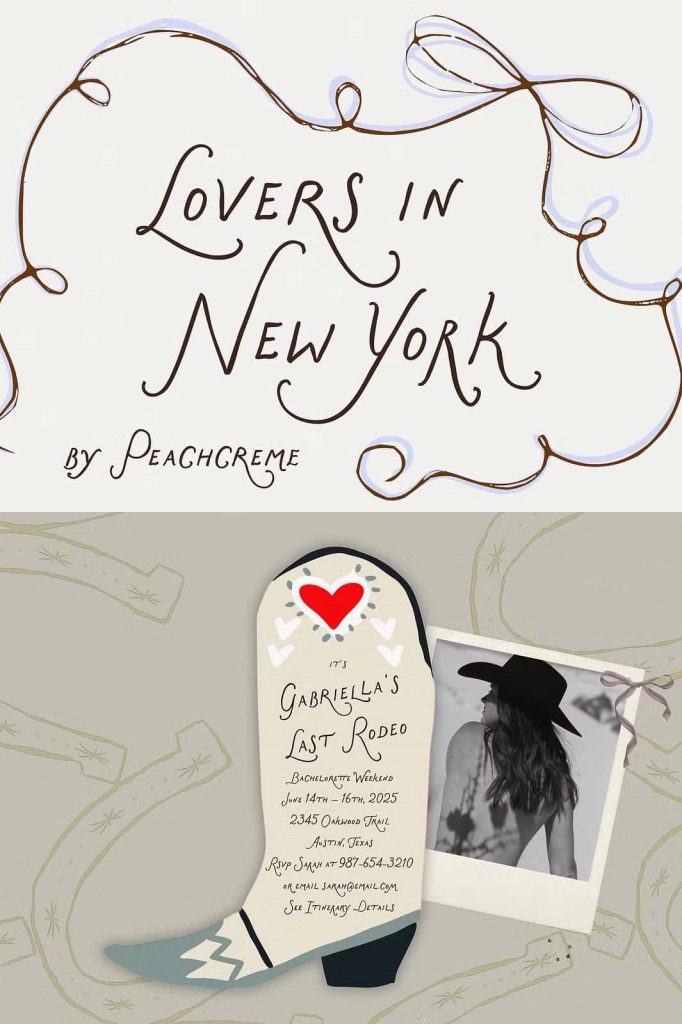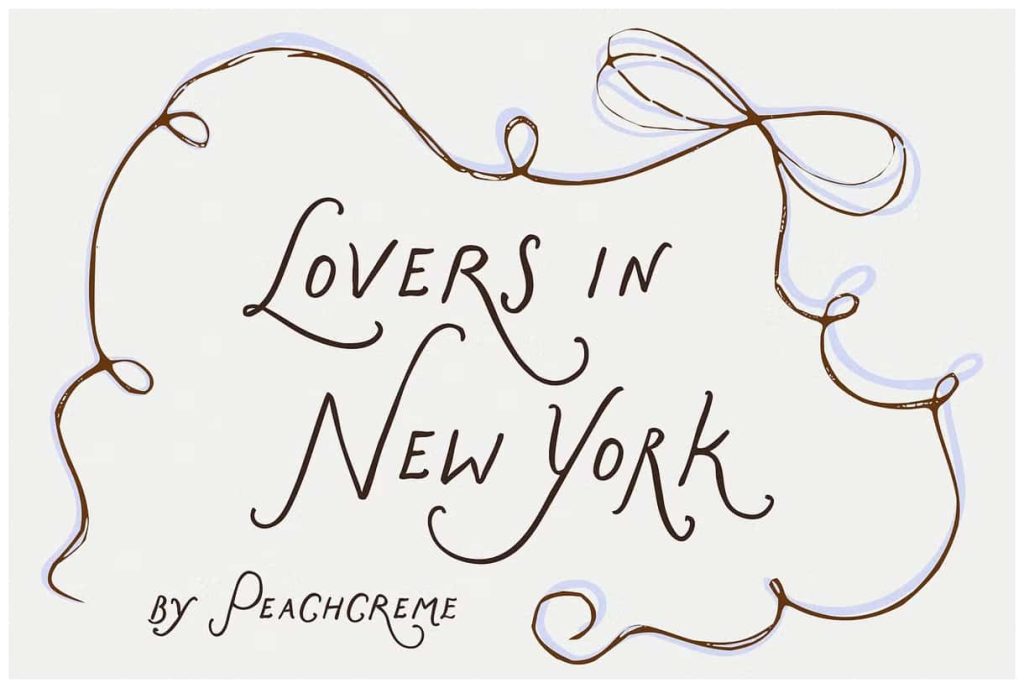
Lovers in New York Font – A Handcrafted Typeface Full of Life and Elegance
Lovers in New York Font is a beautifully hand-drawn typeface that blends energy, elegance, and authenticity. Each letter is crafted with a fluid, natural movement that mirrors the vibrancy of New York’s creative spirit. With its organic strokes and carefully designed imperfections, this typeface offers a unique balance between sophistication and casual charm, making it an excellent choice for designers who want to infuse emotion and personality into their work.
Elegant Handcrafted Design with a Natural Flow
The Lovers in New York Font captures the warmth of handwritten artistry and translates it into a versatile digital form. Its fluid strokes and organic curves evoke a sense of spontaneity and character, reflecting the movement and energy of handwriting done with care. Each letterform feels alive, giving your text a personal and expressive quality that resonates with authenticity.
This typeface celebrates the imperfections that make handwriting so charming. The subtle irregularities in line weight and texture ensure that every design feels dynamic rather than mechanical. Yet, despite its playful nature, Lovers in New York remains elegant and polished, achieving the perfect harmony between freedom and refinement.
Perfect Balance Between Elegance and Informality
One of the defining features of Lovers in New York is its ability to adapt across various design moods. It’s both graceful and approachable—ideal for branding projects, packaging design, wedding invitations, and lifestyle publications. Whether you’re aiming for a romantic, creative, or contemporary look, this font provides a distinctive visual identity that enhances your message with sophistication and warmth.
Designers appreciate its balance of elegance and informality, allowing it to fit comfortably in both professional and artistic contexts. The hand-drawn style feels intimate and personal, while its structure maintains enough consistency for clean, readable layouts. This combination makes Lovers in New York a versatile choice for any project that requires beauty and authenticity in equal measure.
Features That Make Lovers in New York Stand Out
- Hand-Drawn Aesthetic – Every stroke reflects human touch and artistic motion, giving each design personality and warmth.
- Organic Flow – The smooth, natural movement of each letter creates a sense of rhythm and visual harmony.
- Subtle Irregularities – Adds charm and individuality without compromising readability or structure.
- Balanced Elegance – Perfectly blends casual handwritten style with refined sophistication.
- Versatile Application – Ideal for branding, logos, product packaging, wedding stationery, quotes, and lifestyle designs.
Bring Personality and Emotion to Every Design
Lovers in New York is designed for creators who value emotion and individuality in their typography. It has the power to transform simple words into expressive statements. Use it to convey romance, creativity, or warmth in your designs. The font’s rhythm and visual energy make it perfect for projects that tell a story—whether it’s the headline of a magazine, the title of a book, or the tagline of a boutique brand.
With its clean yet dynamic flow, this typeface enhances any composition by adding texture and depth. It shines equally in digital designs, print materials, and social media visuals. The natural movement within each letter ensures that your designs never feel static or cold, making Lovers in New York a reliable choice for visually captivating typography.
Why Choose Lovers in New York Font
Designers choose Lovers in New York because it combines the warmth of handcrafted design with the precision of a modern typeface. It’s expressive without being overwhelming, stylish without losing readability, and artistic without feeling overly decorative. This balance makes it suitable for professionals, artists, and entrepreneurs who want a font that connects emotionally with audiences while maintaining visual sophistication.
The attention to detail in every curve and stroke ensures that this font performs beautifully across different design environments. From romantic branding projects to editorial layouts and creative packaging, Lovers in New York adds a distinctive and timeless charm to any composition.
Conclusion: Add a Touch of Handcrafted Elegance to Your Work
Lovers in New York Font is more than just a typeface—it’s a visual expression of creativity, warmth, and craftsmanship. Its fluid lines and organic forms bring words to life, capturing the essence of handwritten beauty in a professional design format. Perfect for branding, invitations, and artistic compositions, Lovers in New York delivers elegance and personality in every curve. Bring your designs to life with this lively, hand-drawn typeface that embodies the energy and romance of modern creativity.